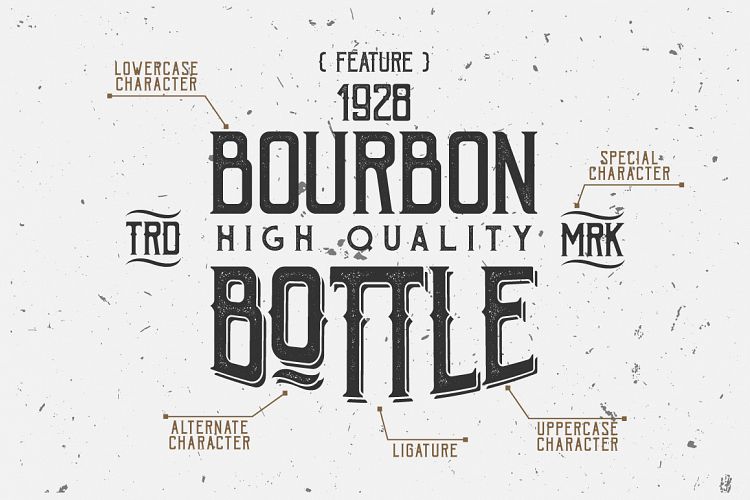
Bohem Press Free Font I want to introduce to you a new font family. Bohem have Style Clean, Shadow, Press, Press Shadow Vintage .That is Bohem Typeface! Bohem designed by DikasStudio. Bohem is a display sans font family. Bohem have Style Clean, Shadow, Press, .Bohem vintage label font typeface. font vintage label branding brewery typeface retro. Download Bohem Typeface Font Styles today! Barbaro Creative Fonts, Cool Fonts, Great Fonts, Commercial Fonts, Font The Curiosities Font Collection Vintage Fonts, Vintage Labels, Script Typeface, Hand Drawn .Hello friend, let me introduce my product Bohem Typeface Font Style Yes, Bohem have Style Clean, Shadow, Press, Press Shadow .Free and Premium Font Downloads | Selection of free fonts and typefaces for various design purposes serif, display, handwriting, headings, brush and non serif..Free and Premium Font Downloads | Selection of free fonts and typefaces for various design purposes serif, display, handwriting, headings, brush and non serif..Free and Premium Font Downloads | Selection of free fonts and typefaces for various design purposes serif, display, handwriting, headings, brush and non serif..Free and Premium Font Downloads | Selection of free fonts and typefaces for various design purposes serif, display, handwriting, headings, brush and non serif..